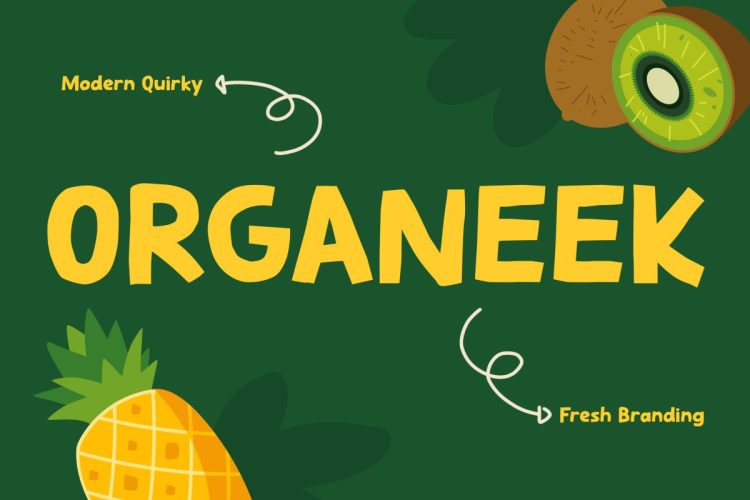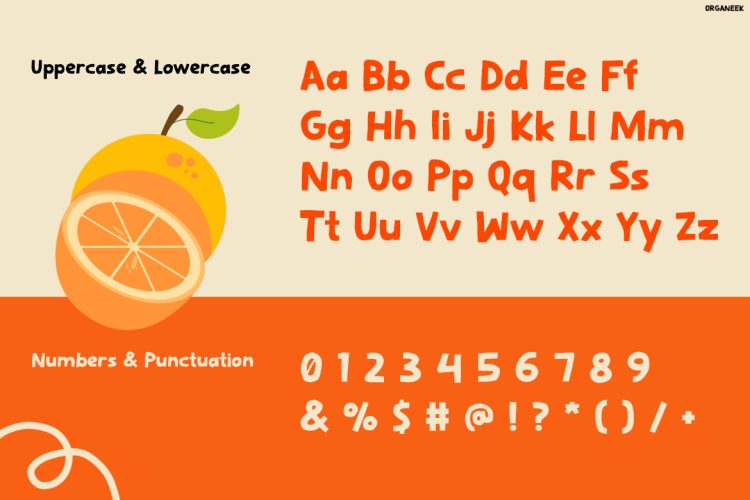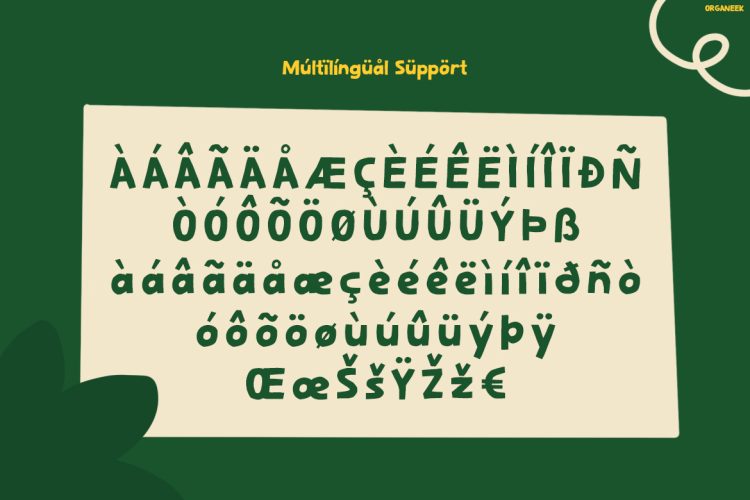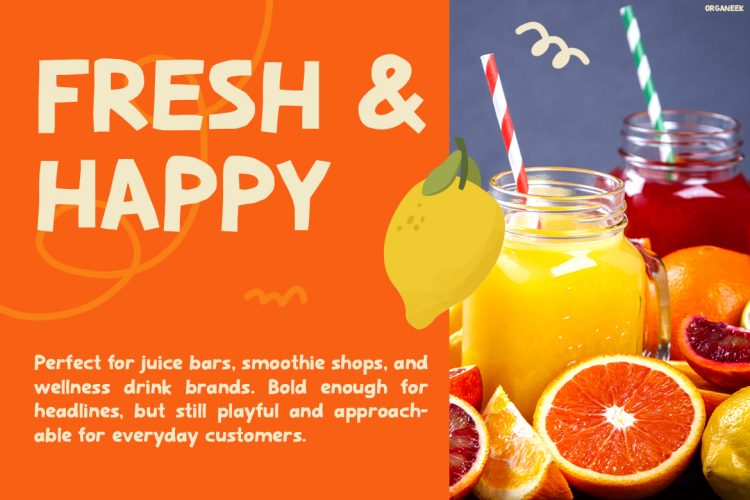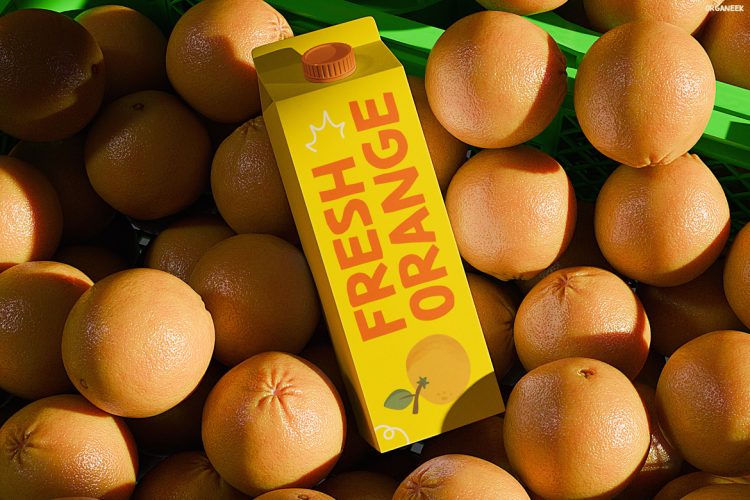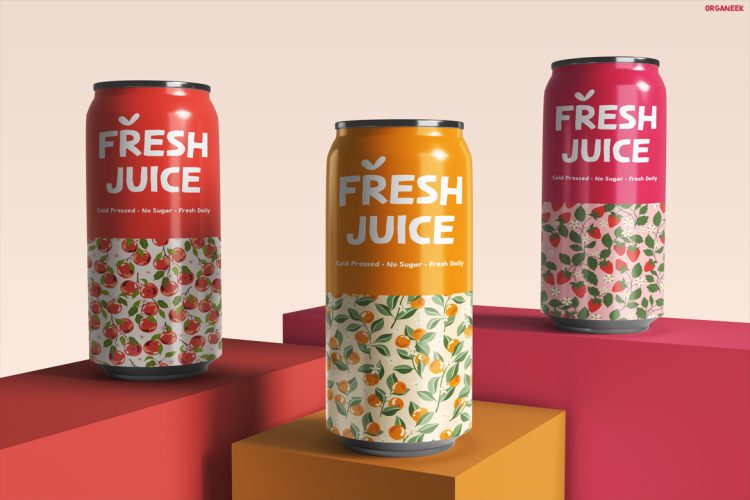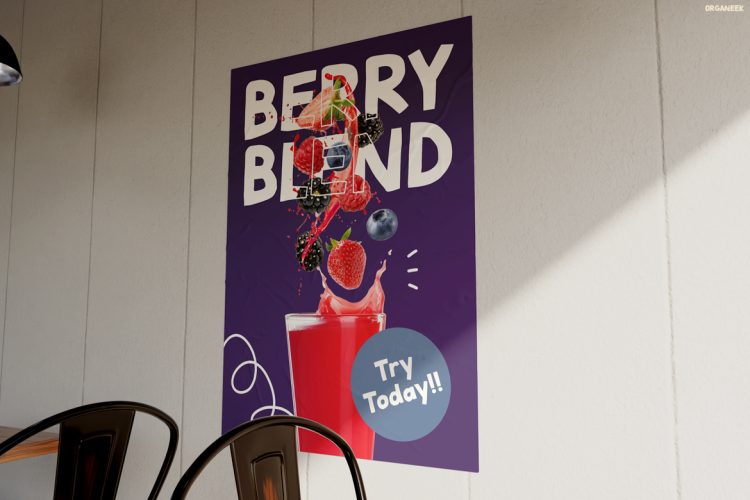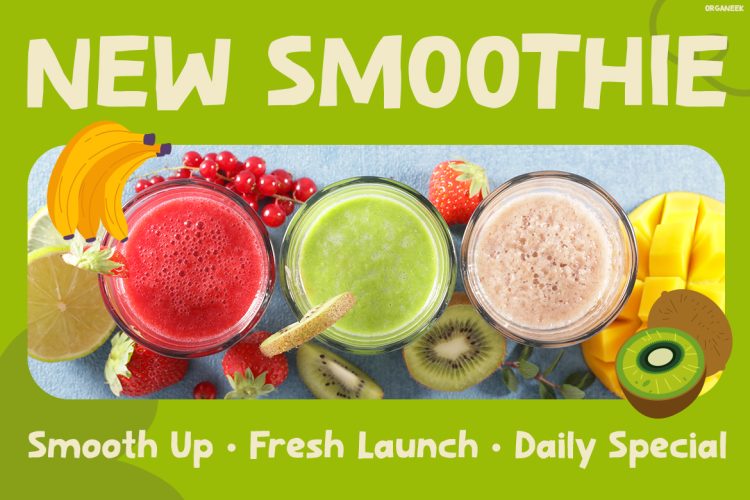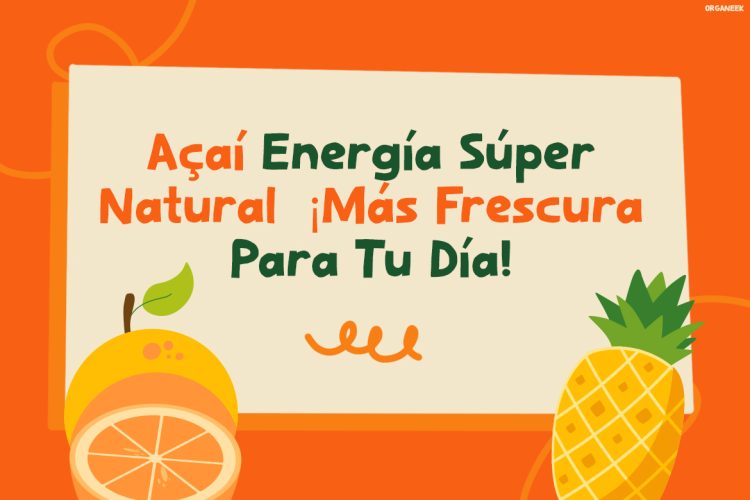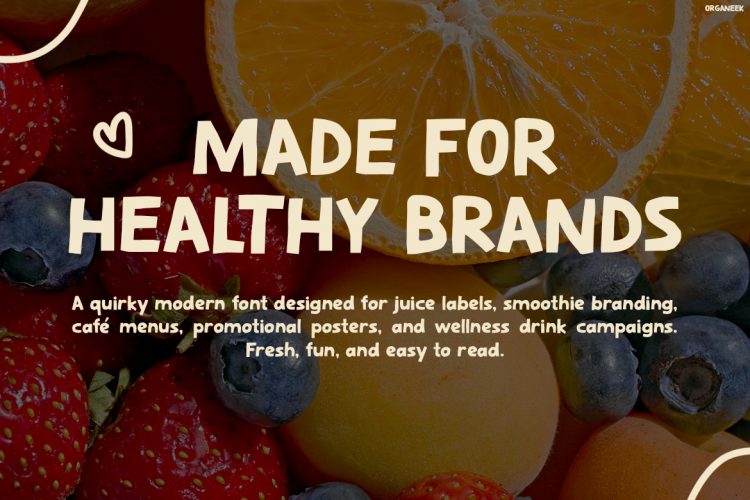
Organeek โ Fresh Modern Display Font for Vibrant Branding
Modern Font Organeek instantly delivers a lively and juicy personality to your designs, while also maintaining clean readability. Moreover, its bold, rounded shapes and organic curves create a perfect harmony between playful style and professional structure. As a result, every composition feels fresh, dynamic, and visually engaging. In addition, this font performs beautifully in colorful layouts, especially for food, beverage, and lifestyle themes. Not only that, but its smooth letterforms also ensure clarity across both digital and print media. Furthermore, with Multilingual Support (67 Languages), your message can easily connect with a global audience.
Modern Font Organeek is carefully crafted to stand out in bright and cheerful designs; therefore, it becomes a strong visual asset for modern branding. At the same time, it remains highly versatile, allowing designers to use it across posters, packaging, social media, and advertising. For instance, it works perfectly for bold headlines as well as engaging promotional visuals. Consequently, this font helps communicate freshness, health, and positivity in a more compelling way.
This font is ideal for creative entrepreneurs and brand designers; additionally, it fits perfectly for marketing teams aiming to build strong visual identity. Specifically, it works best for organic food brands, juice bars, smoothie shops, and eco-friendly products. Likewise, it is also great for kids-related designs and playful campaigns. On top of that, content creators and advertisers can use it to produce eye-catching and scroll-stopping content.